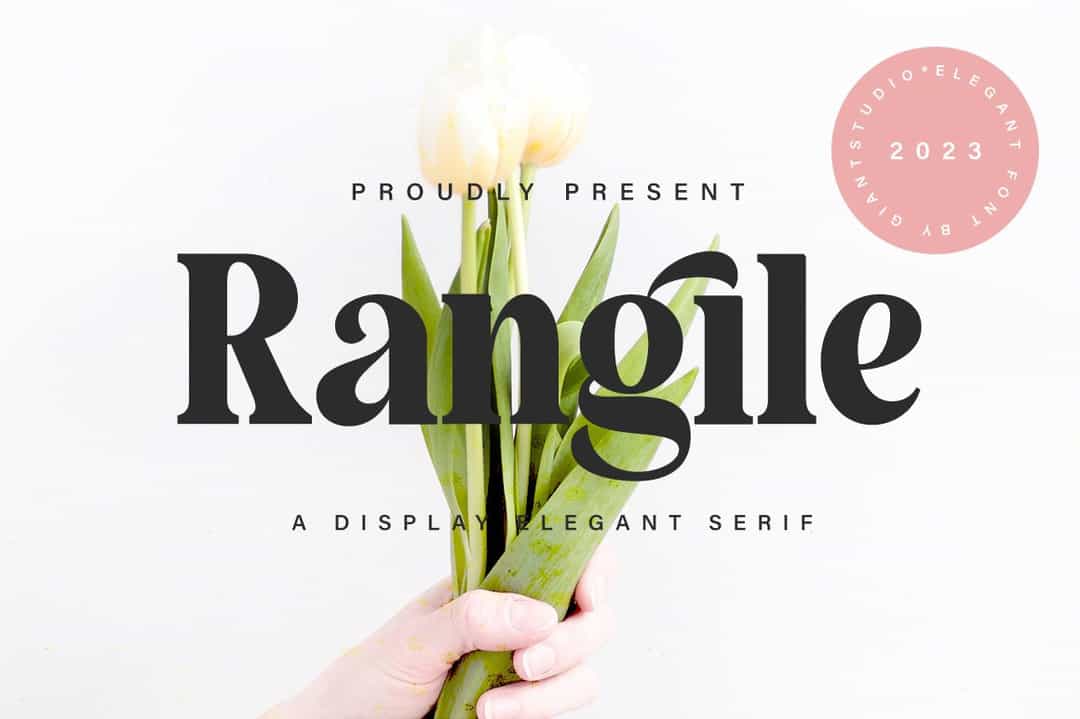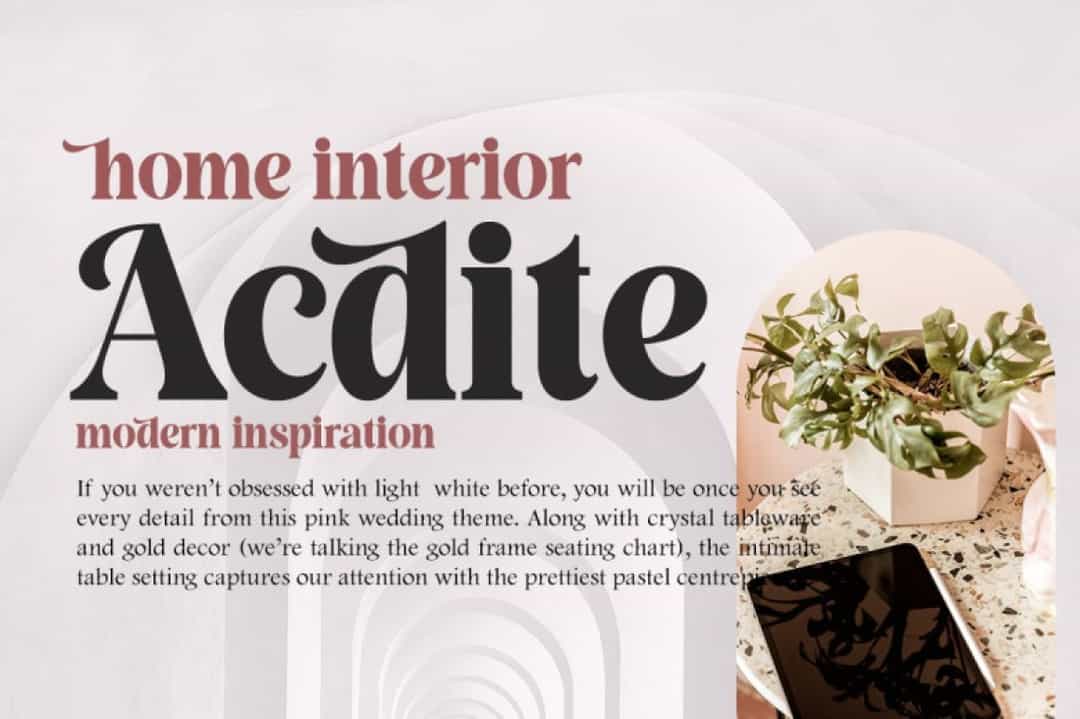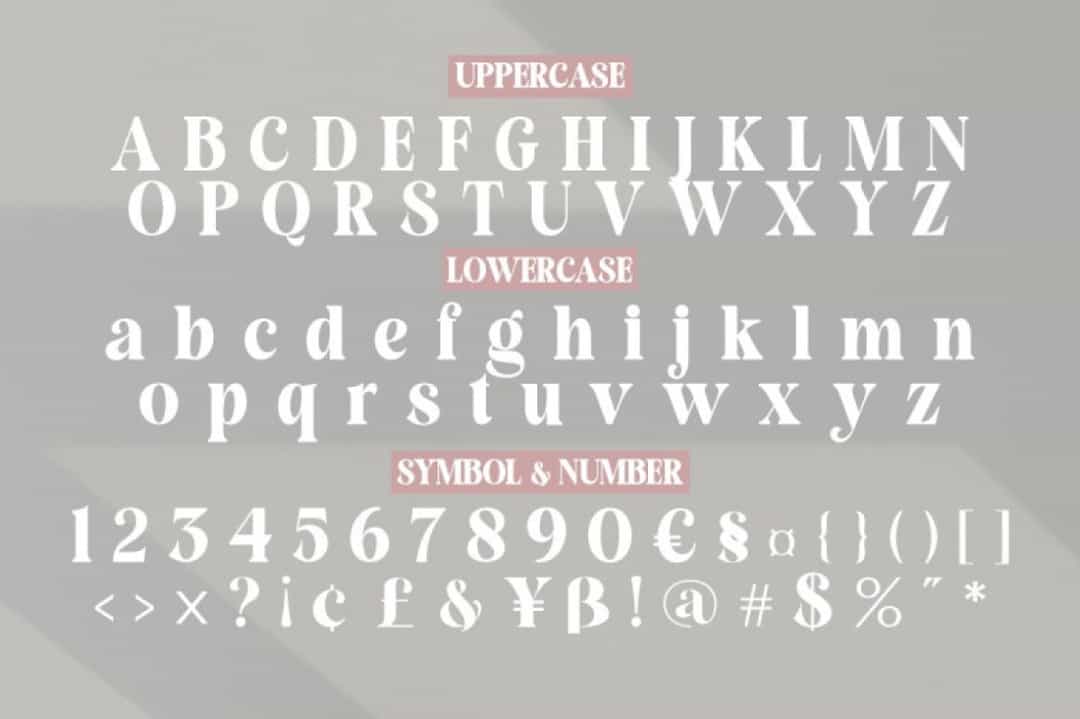
Discover Rangile Font, part of the Serif Display collection—a versatile and unique font perfect for adding a personal touch to your projects. Download it for free and enjoy crafting designs with style, from invitations to social media posts. This font is available exclusively for personal use, giving you the freedom to create without limits. Unlock your creativity with Rangile Font today!
Welcome, Rangile We are thrilled to introduce our brand new elegant serif font. Blending natural elements of Rangile style with sophisticated and contemporary styles results in a font which is elegant natural chic and stylish – ideal for logos invitations branding as well as advertising photography watermarks social media posts product packaging labels wedding stationery special occasions and everything else required to set an atmosphere.